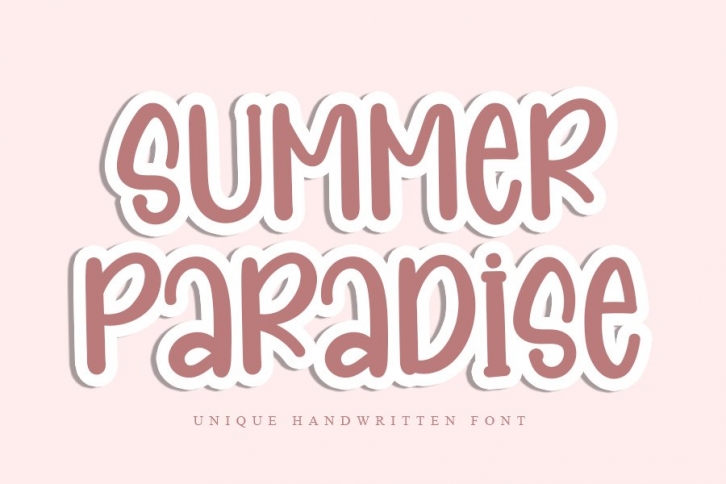
Summer Paradise is a trendy and unique font with an authentic style. It was designed by InermediaSTUDIO and it's a great choice for creative people who need such a font. It was released on May 7, 2021 and the file size is 2.51 MB. Summer Paradise will add an organic vibe to any design idea!